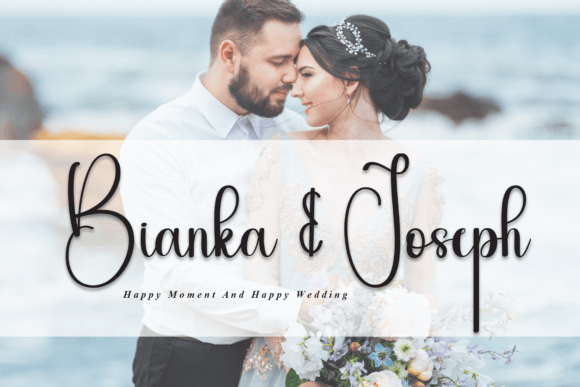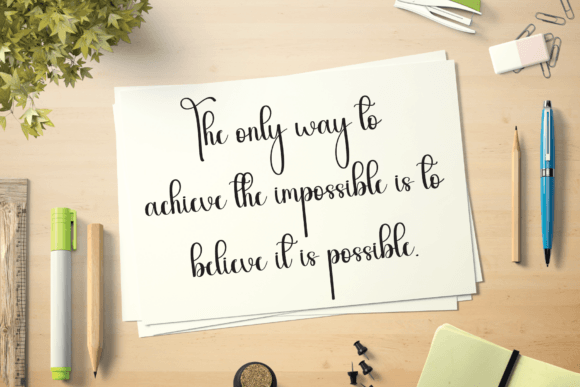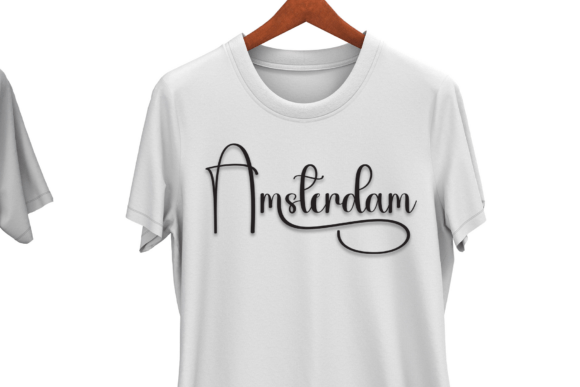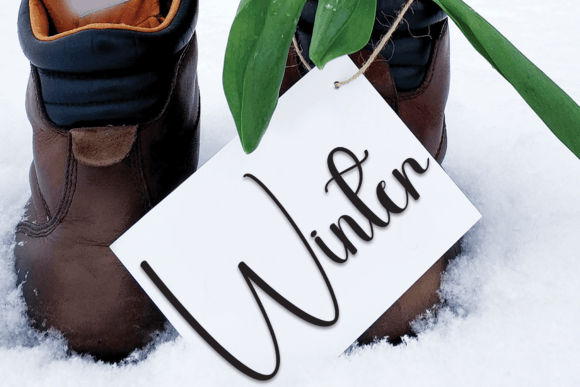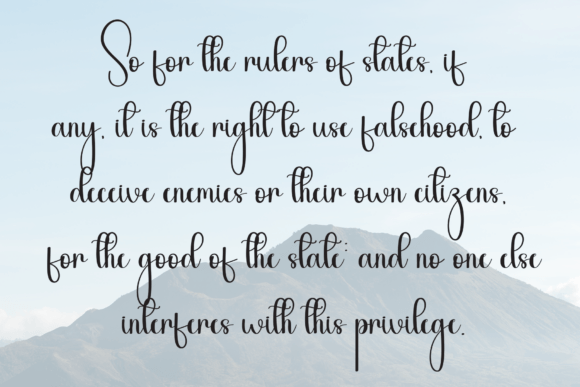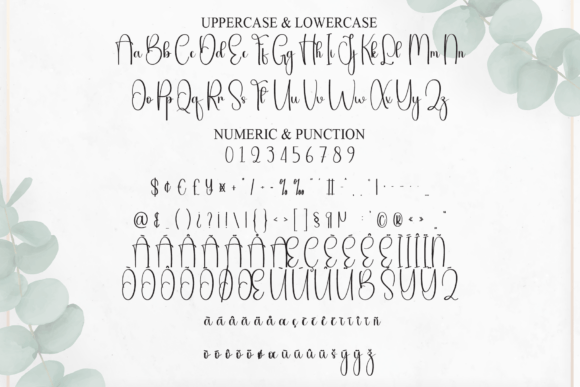
Discover the Delightful Charm of Our Unique Handwritten Font
In the world of design, fonts play a crucial role in conveying emotions and setting the tone for your creative projects. If you’re looking for a font that exudes warmth, friendliness, and a touch of whimsy, look no further. Our unique handwritten font is here to revolutionize your designs with its lusciously sweet and amiable charm.
The Perfect Companion for Your Design Needs
Our handwritten font is more than just a collection of letters; it’s a design companion that can elevate your projects to new heights. Whether you’re working on wedding invitations, greeting cards, or any other creative endeavor, this font is designed to infuse your designs with an irresistibly fun aura. Its endearing allure is sure to capture the hearts of your audience, making your designs truly unforgettable.
Bursting with Endearing Allure
What sets our handwritten font apart is its unique ability to convey emotions through its sweet and amiable character. Each letter is carefully crafted to exude a sense of warmth and friendliness, making it perfect for designs that require a personal touch. Whether you’re aiming to create a romantic ambiance or simply want to add a dash of playfulness to your designs, our font is up to the task.
The Perfect Addition to Your Wedding Invitations or Cards
Wedding invitations and cards are special occasions that call for a font that’s both elegant and charming. Our handwritten font is specifically designed to meet these needs, offering a refreshing alternative to traditional fonts. Its whimsical and romantic character makes it perfect for wedding designs, while its versatility ensures it can be used for a wide range of creative projects.
Elevate Your Designs with Our Captivating Font
Our handwritten font is more than just a design element; it’s a tool that can elevate your creations to new heights. By incorporating this font into your designs, you can:
- Add a touch of warmth and personality to your projects
- Create a unique and memorable visual identity
- Convey emotions and set the tone for your designs
- Make your designs stand out from the crowd
Sprinkle Joy and Warmth onto Any Canvas
Our handwritten font is designed to bring joy and warmth to any design it graces. Its captivating character is sure to engage your audience and leave a lasting impression. Whether you’re working on a digital project or a physical one, this font is sure to sprinkle a dash of magic onto your canvas.
Why Choose Our Handwritten Font?
With so many fonts available, why choose ours? Here are just a few reasons why our handwritten font stands out:
- Unique and original design
- Carefully crafted to convey emotions and warmth
- Versatile and suitable for a wide range of design projects
- Perfect for designs that require a personal touch
In conclusion, our unique handwritten font is a design companion that’s sure to elevate your creative projects to new heights. With its lusciously sweet and amiable charm, it’s perfect for designs that require a touch of warmth and personality. Whether you’re working on wedding invitations, greeting cards, or any other design project, our font is sure to sprinkle joy and warmth onto any canvas it graces. So why wait? Discover the delightful charm of our unique handwritten font today and take your designs to the next level.
Get Ready to Fall in Love with Our Handwritten Font
We’re confident that our handwritten font will capture your heart and become your go-to design companion. With its unique character and versatility, it’s sure to be a valuable addition to your design toolkit. So why not give it a try? Explore the delightful charm of our handwritten font today and experience the magic it can bring to your designs.